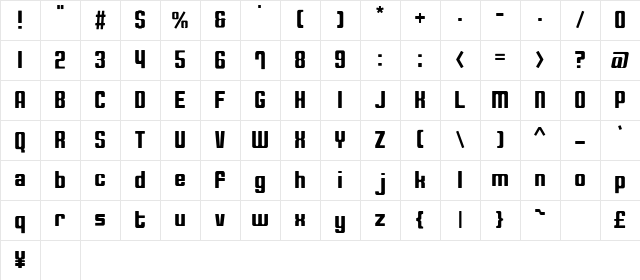
Compact20 Regular
Design Context for Compact20
Compact20 is a composed and adaptable typeface that performs quietly and consistently across a wide range of design contexts. Its narrow stance lets it pack a punch even in space-constrained designs.